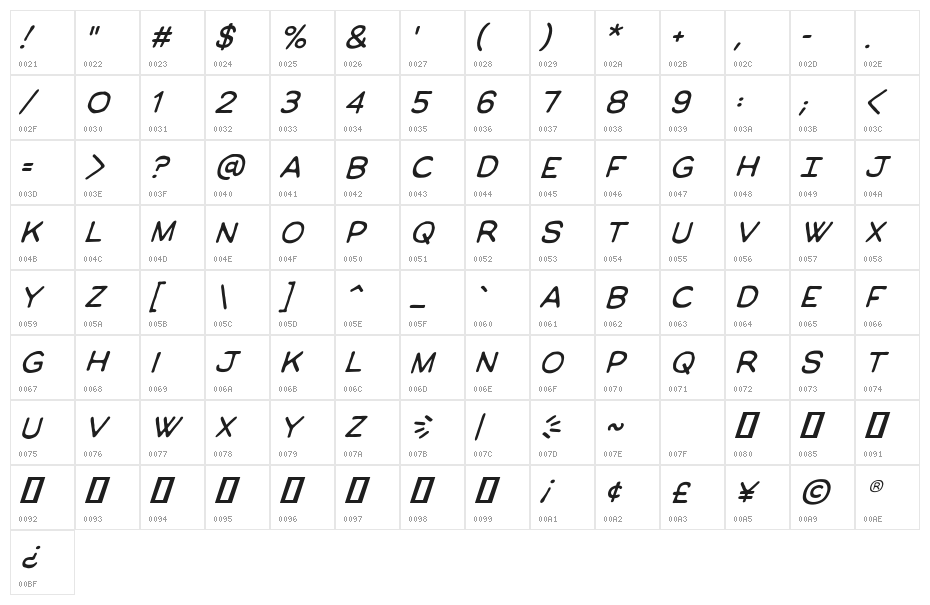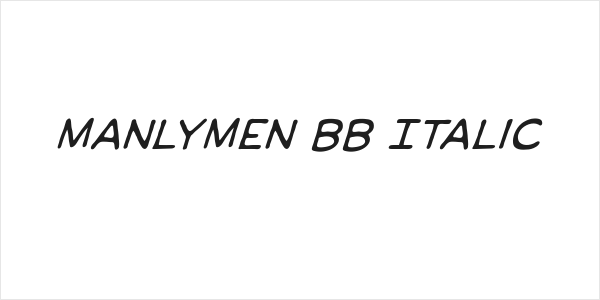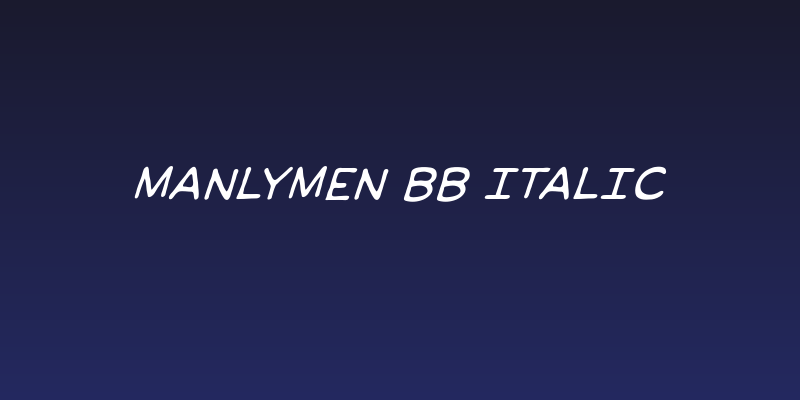
ManlyMen BB Italic Font
ManlyMen BB Italic Description
This font features a bold and dynamic style with a distinct italic slant, giving it a sense of motion and energy. The characters are rounded and slightly condensed, which adds to its bold appearance. The uppercase and lowercase letters maintain a consistent style, with smooth curves and a uniform stroke width that provides a cohesive look. The numerals are clear and legible, matching the overall style of the alphabet. Special characters are designed to complement the letters and numbers, ensuring a harmonious appearance across all glyphs. This font is suitable for projects that require a strong and impactful visual presence.
| Proposed Projects | Ideal for sports branding, dynamic posters, and energetic advertising campaigns. |